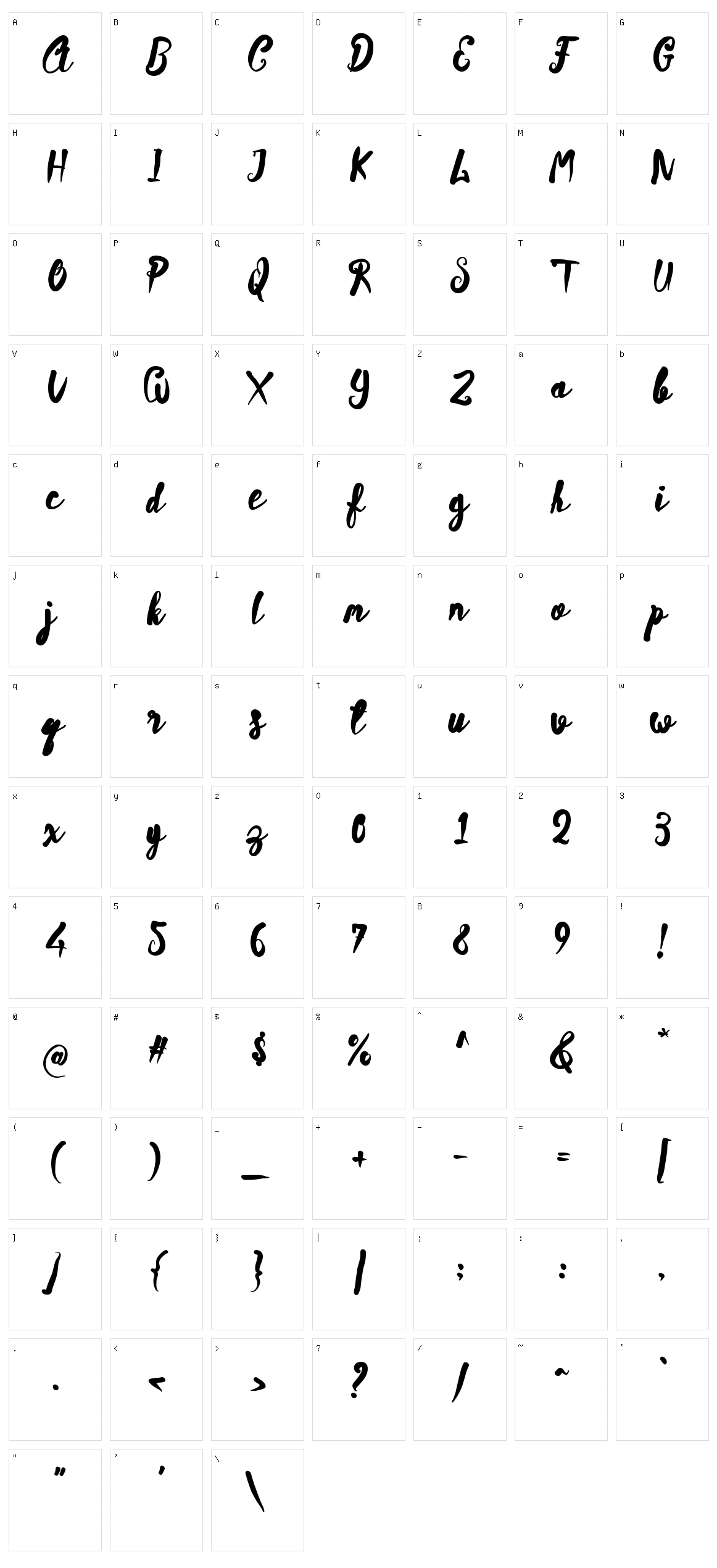
The free font Sambalado is carefully designed by Royaltype, showcasing a thoughtful balance of creativity and usability and falls under the Script font style. When you download the ZIP file, it contains only 76.76 KB of font files, making it lightweight and quick to download. Please review the license details below to understand permitted usage and distribution rights. If license information is not available, we recommend using this font for personal projects only or contacting the author directly for commercial usage permissions.